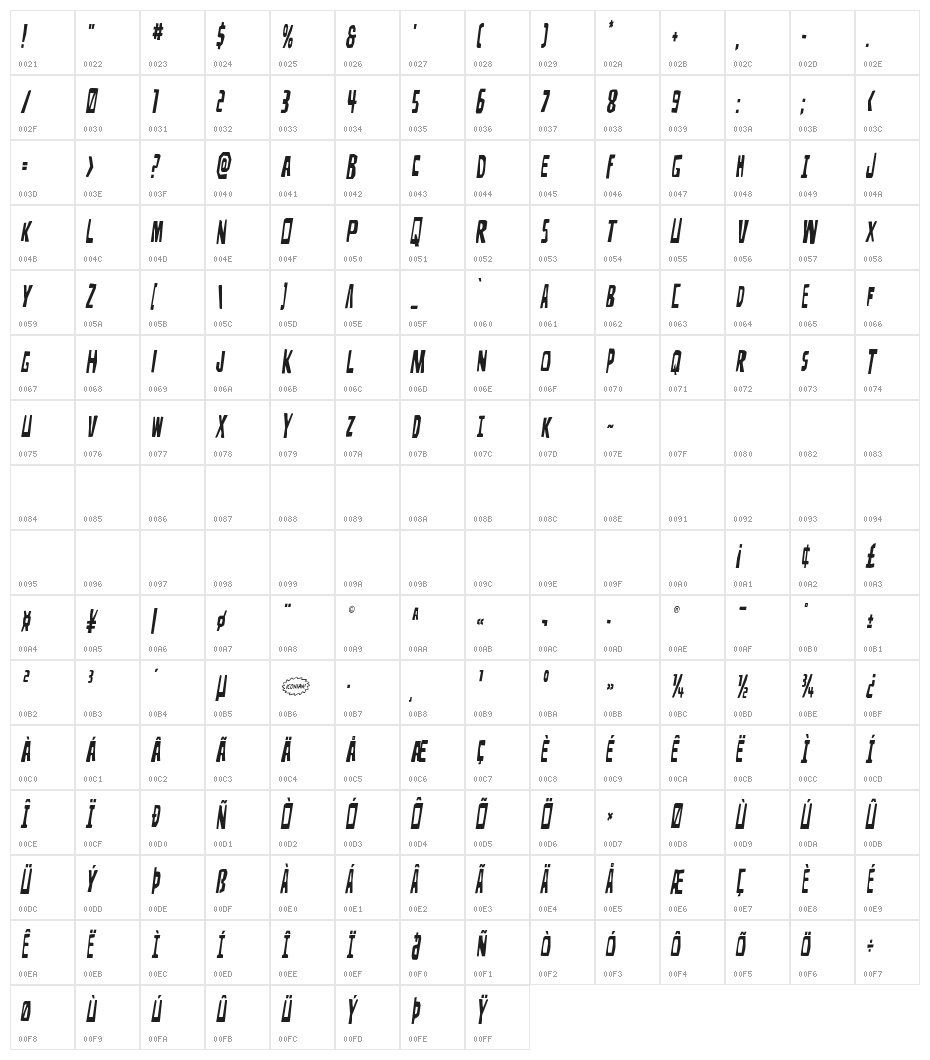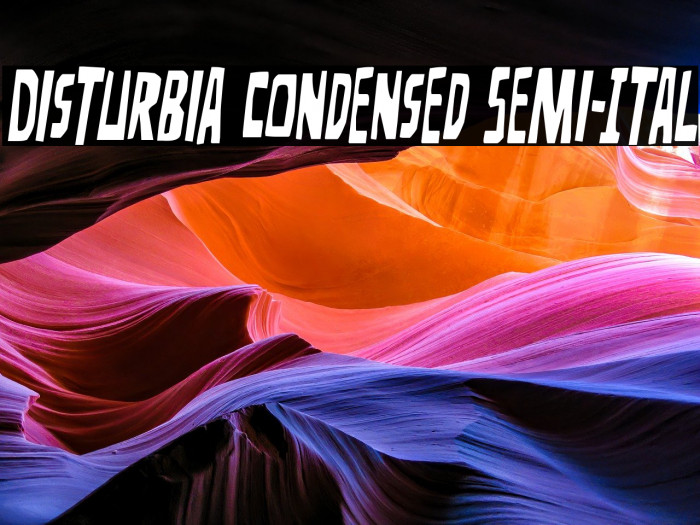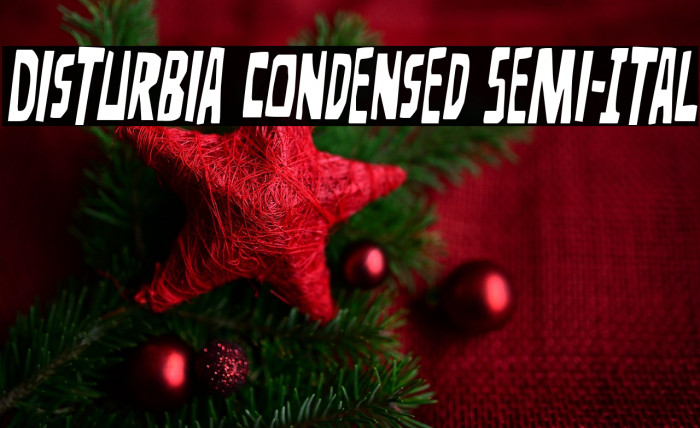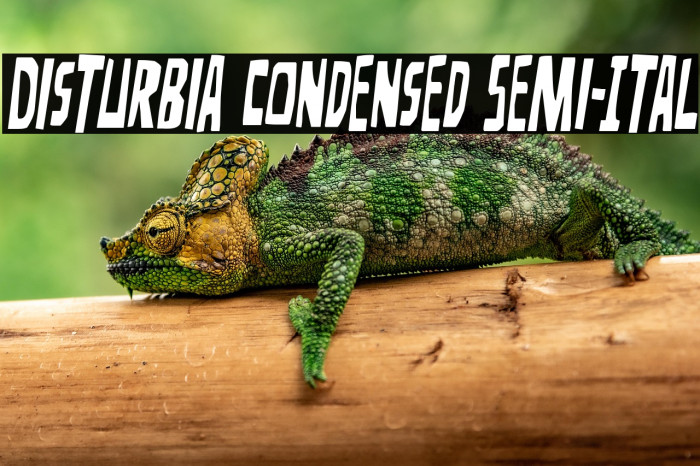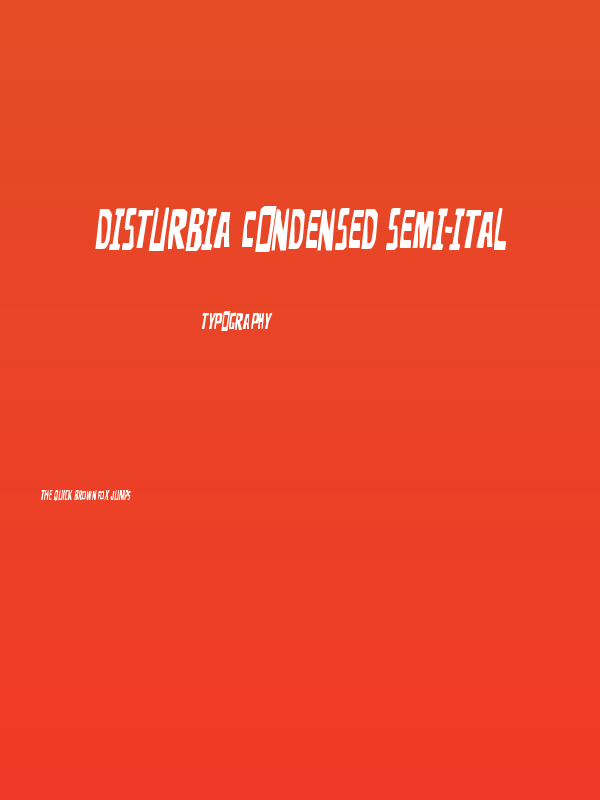
Disturbia Condensed Semi-Ital Font
Disturbia Condensed Semi-Ital Description
This font features a bold and dynamic style with a condensed form and semi-italic slant. The characters exhibit a strong presence with thick strokes and angular edges, creating a sense of movement and urgency. The uppercase letters are particularly striking, with a slightly futuristic and aggressive appearance. The numbers and special characters maintain the same boldness and angularity, ensuring consistency across the typeface. This font is designed to grab attention and convey a sense of energy and modernity.